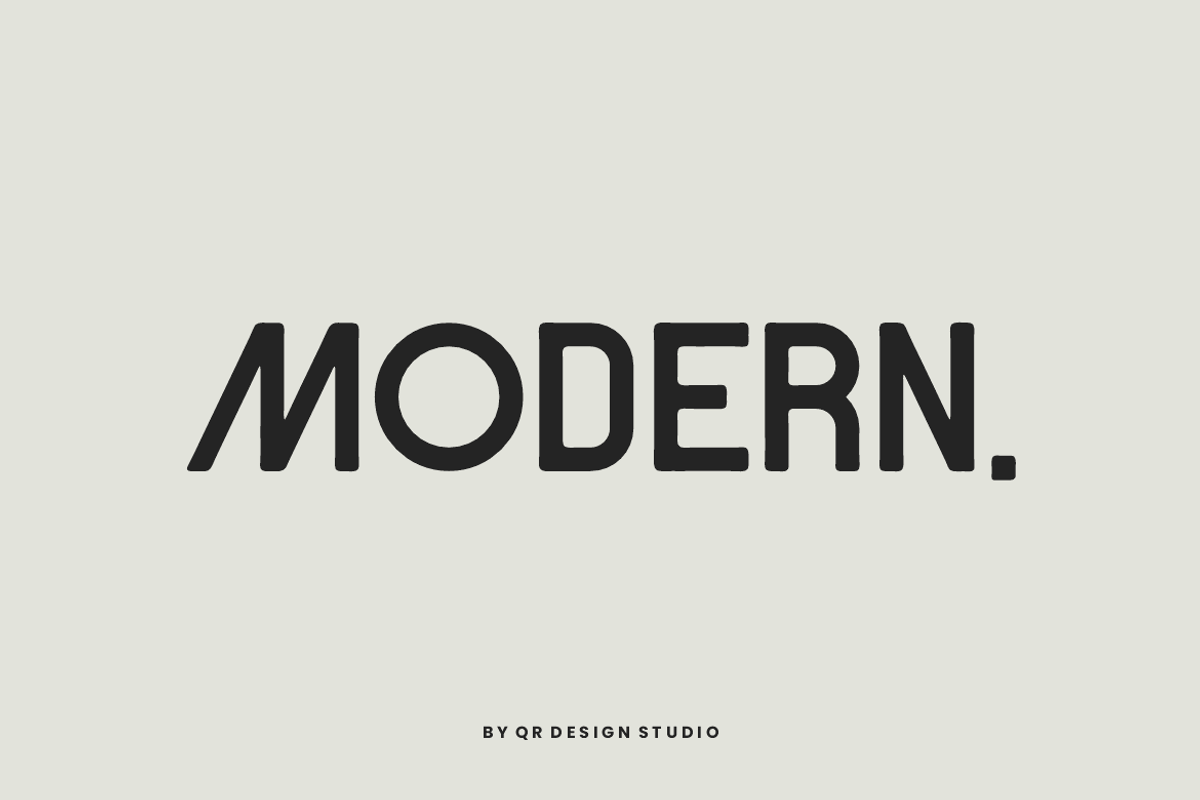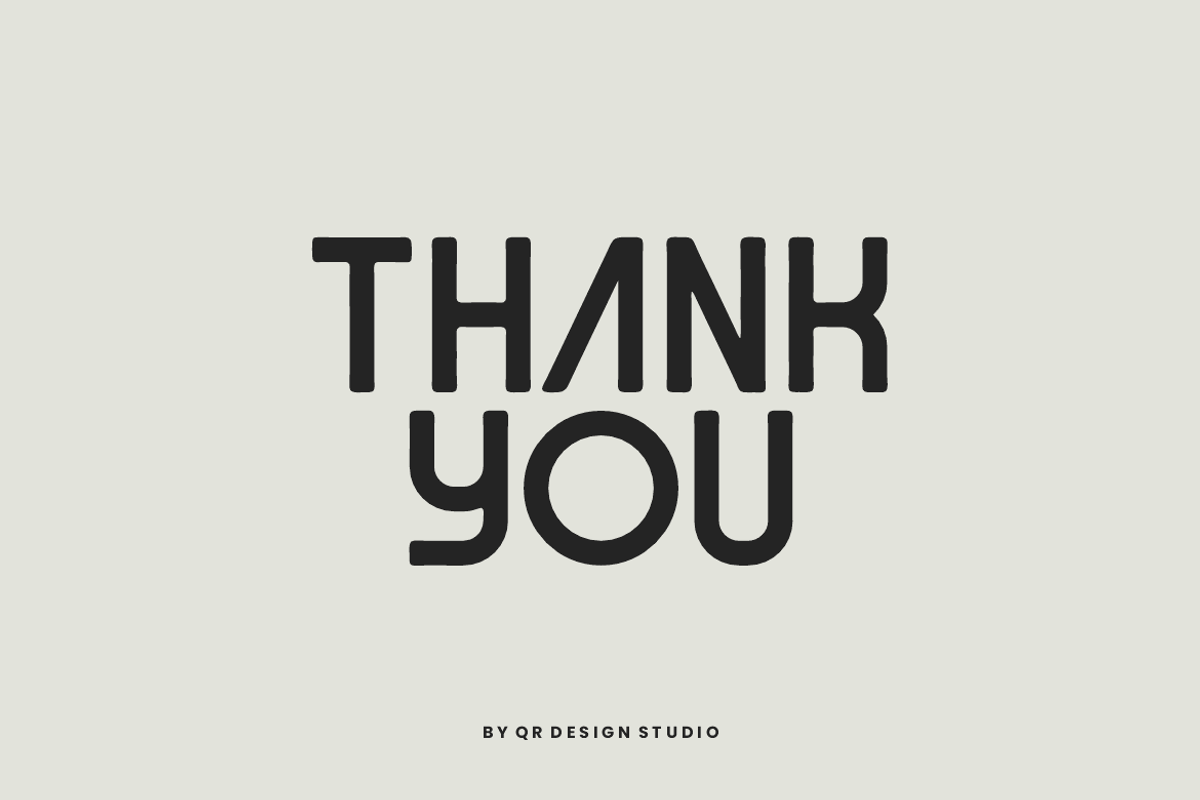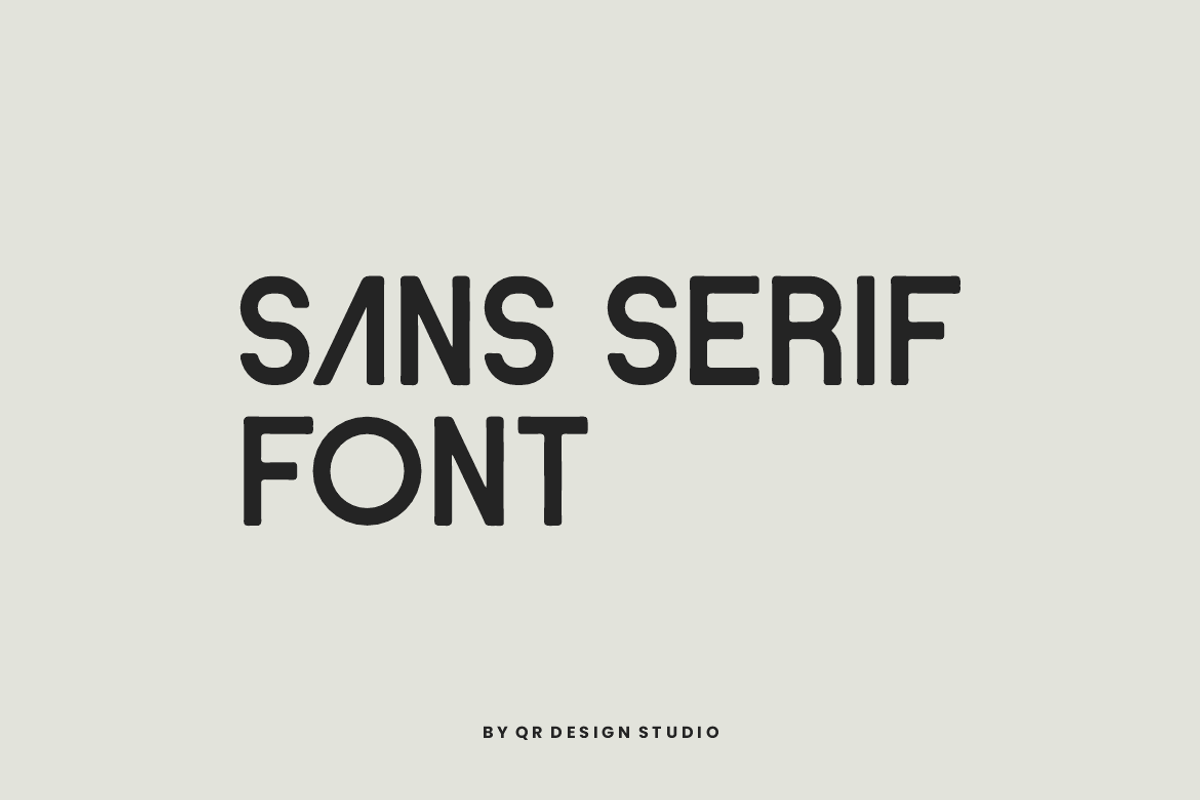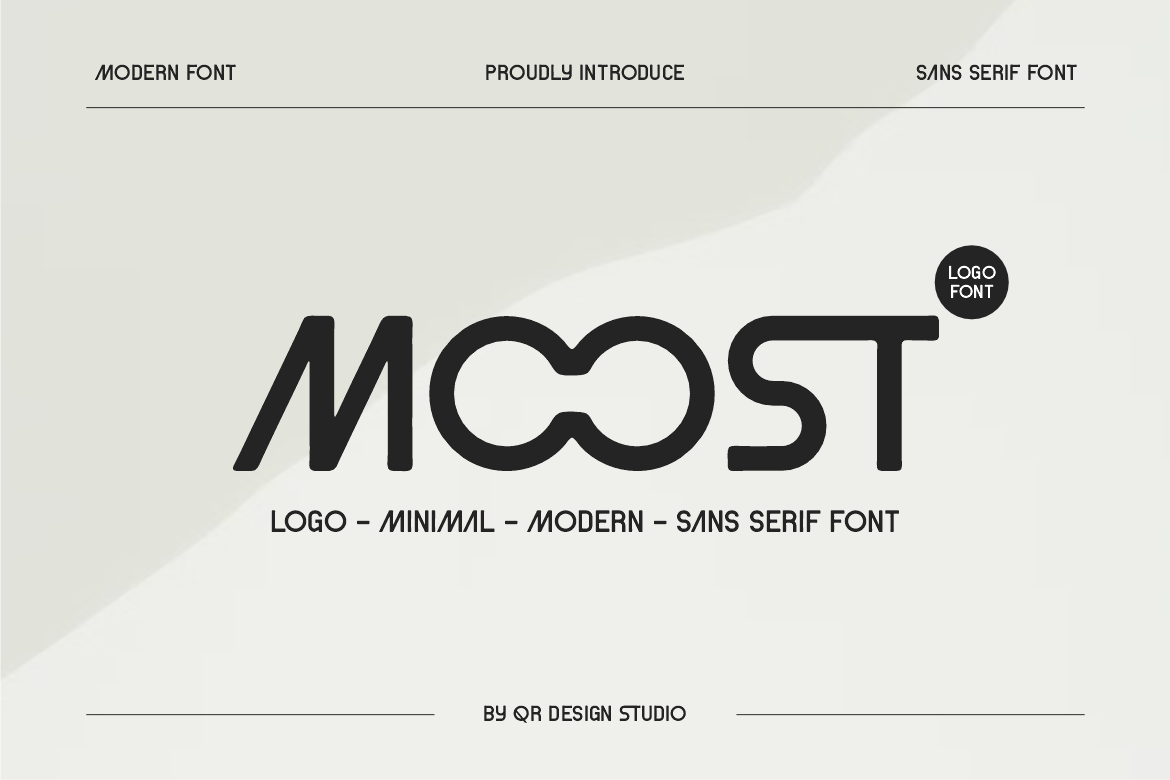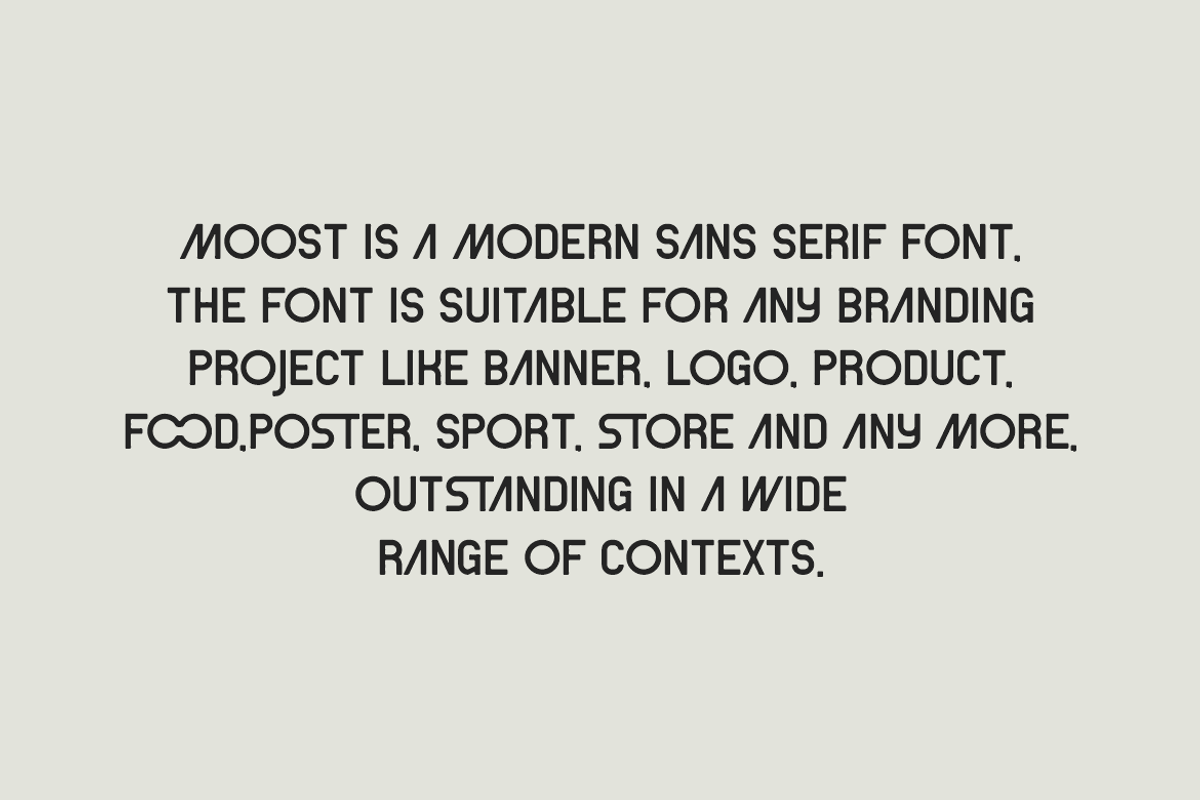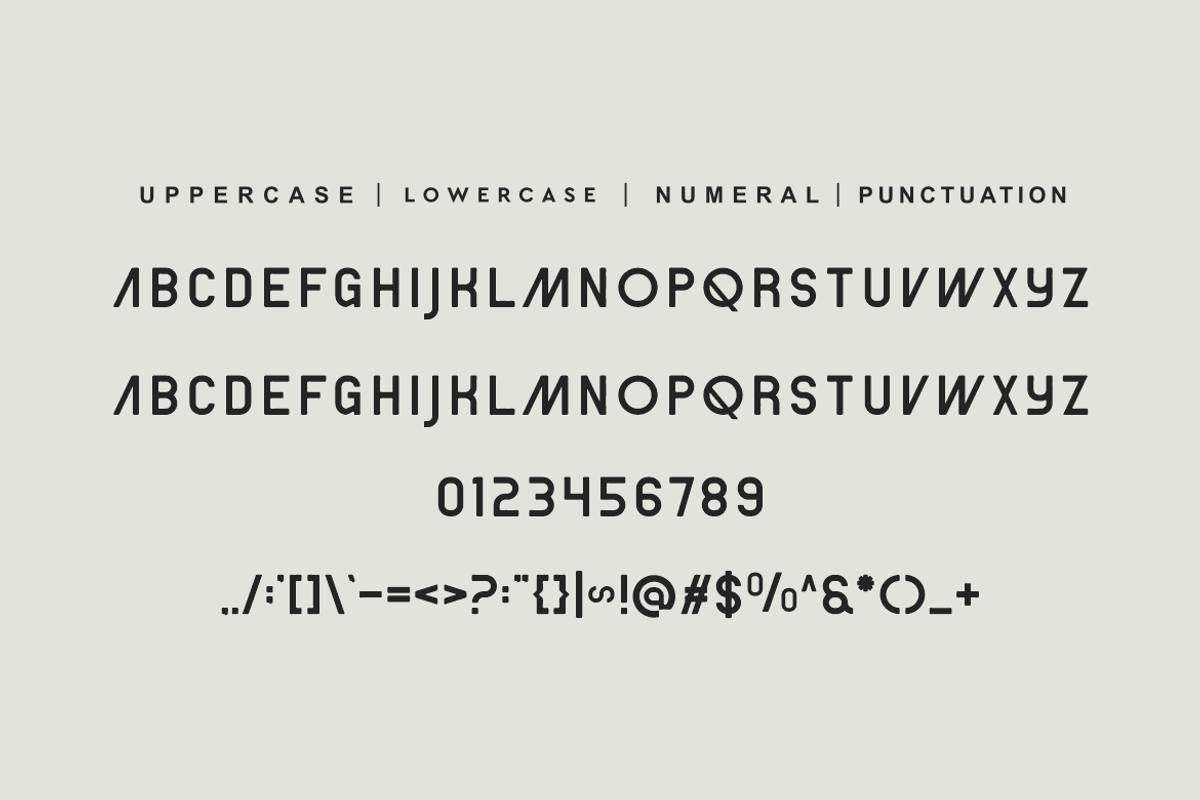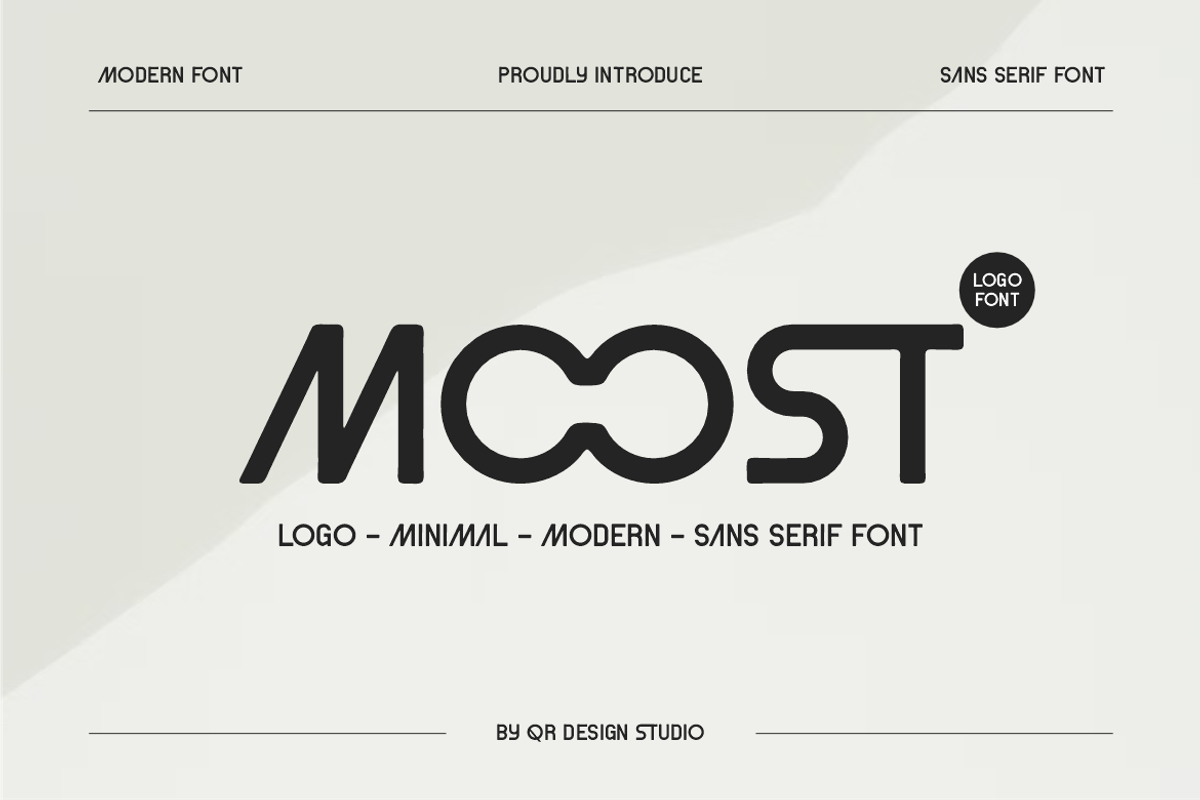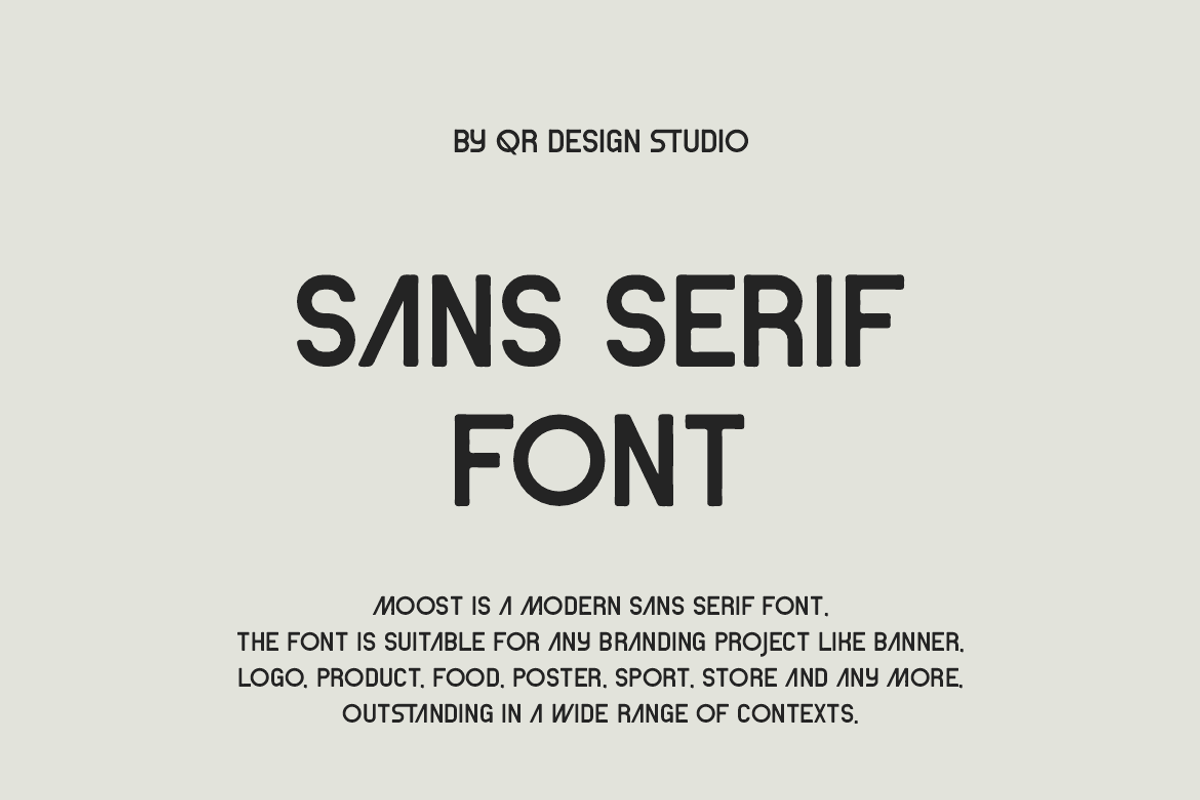
Moost - Futuristic & Logo Font
Moost Font is a sans serif and authentic display font. The font is suitable for any branding project like poster, logo, sport, and many more. Outstanding in a wide range of contexts.